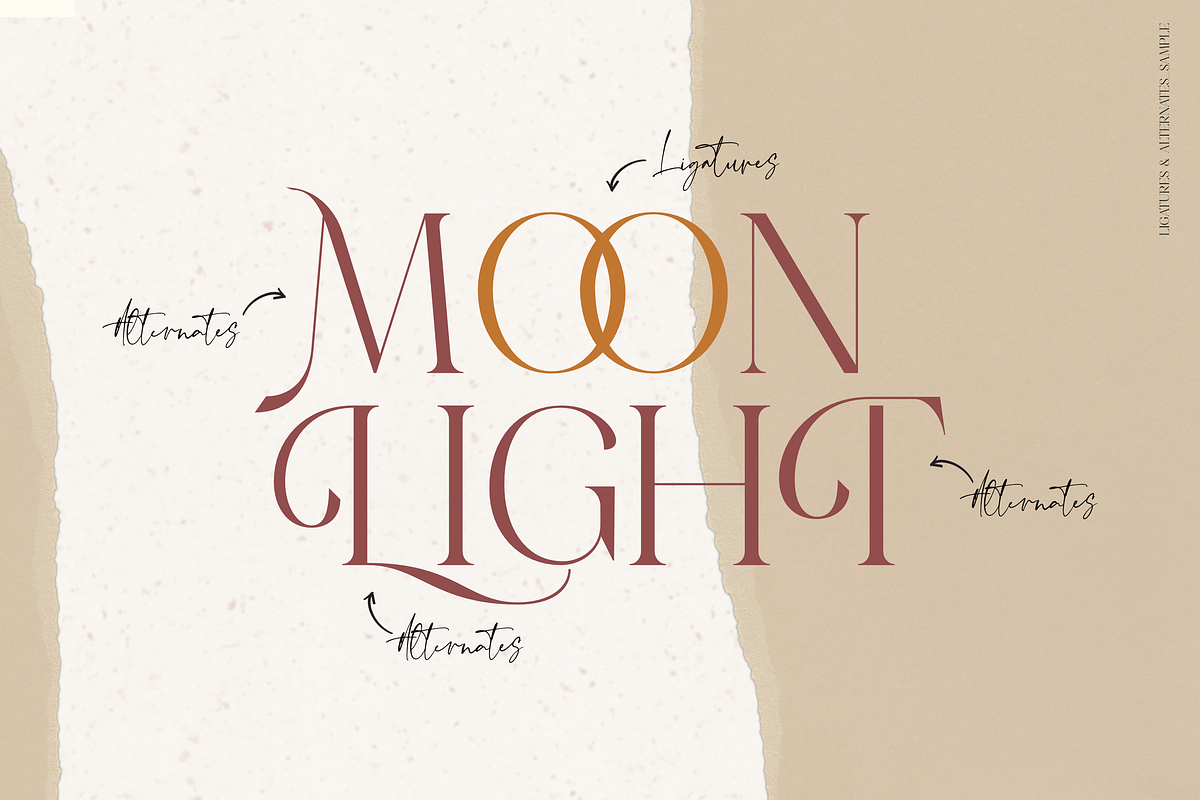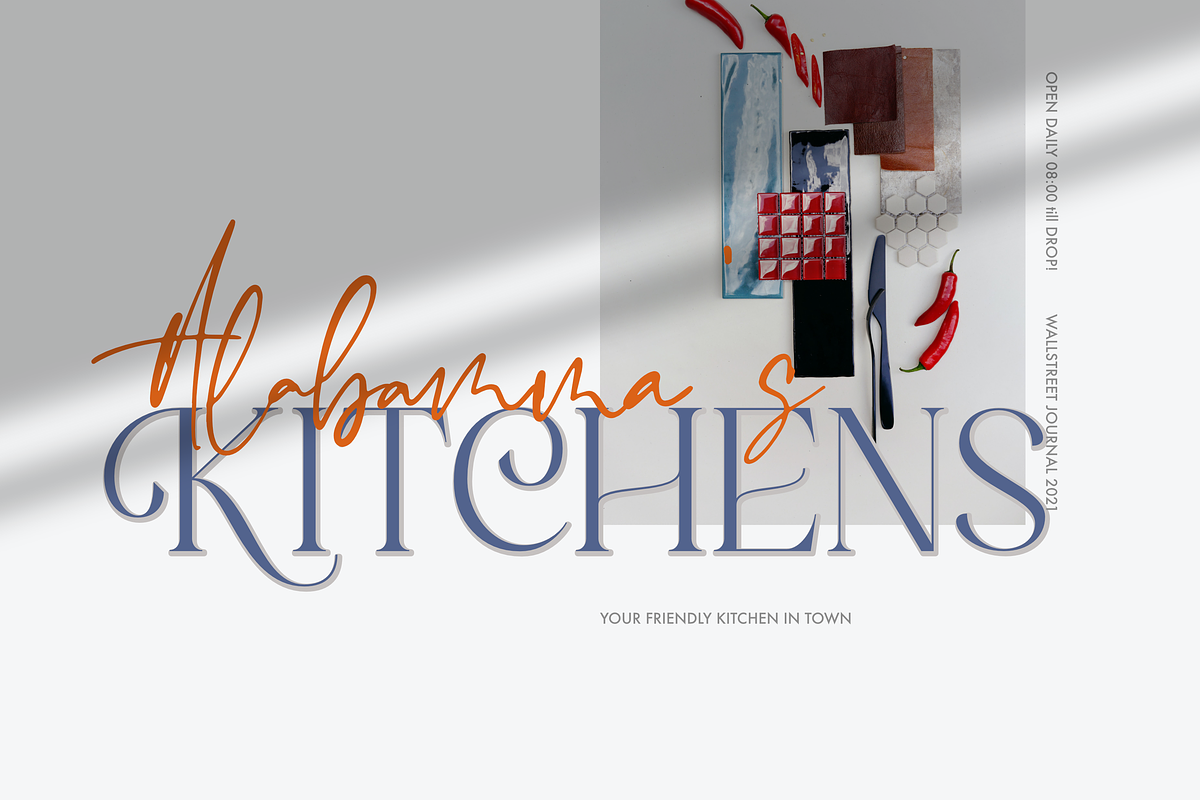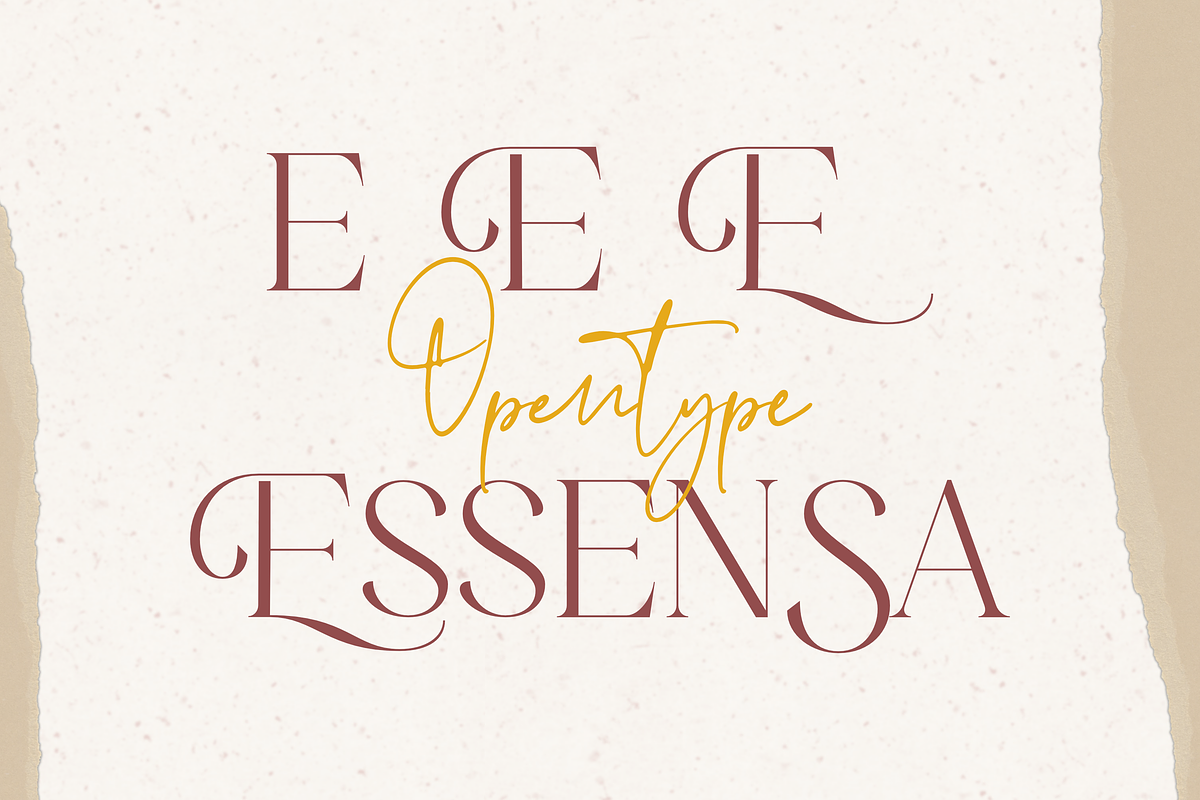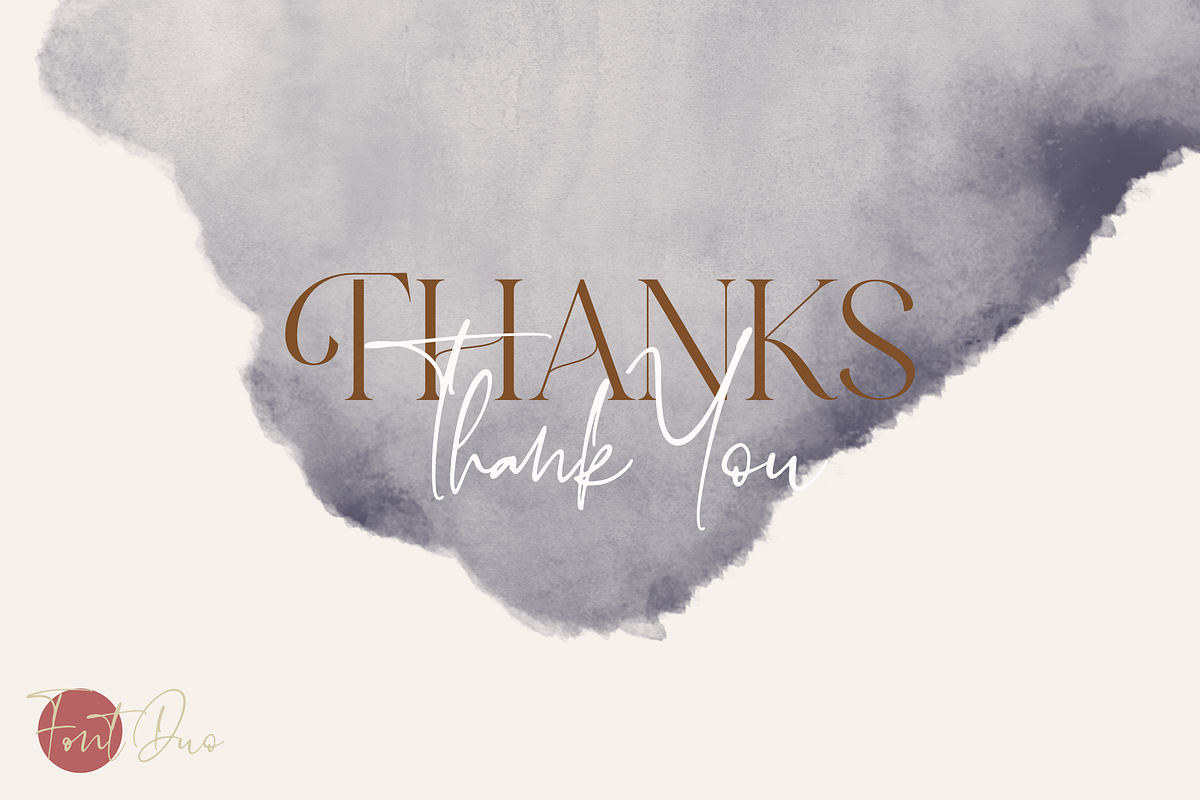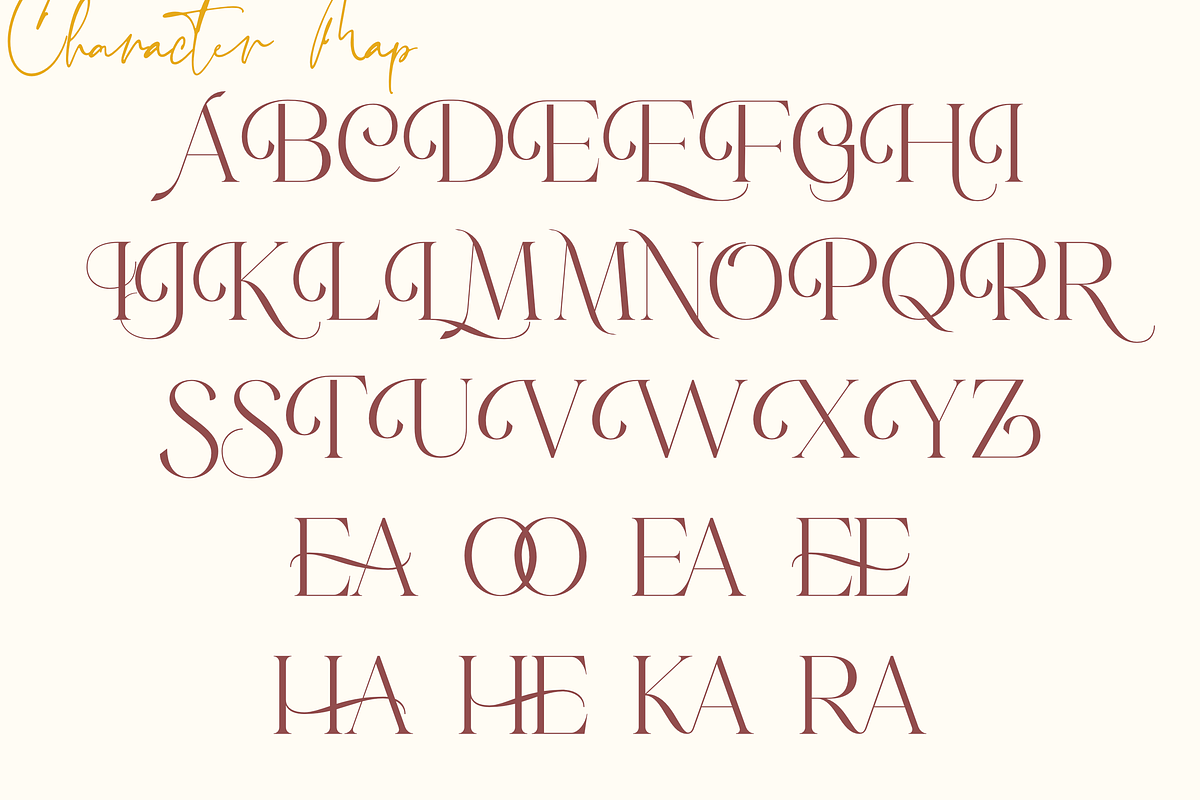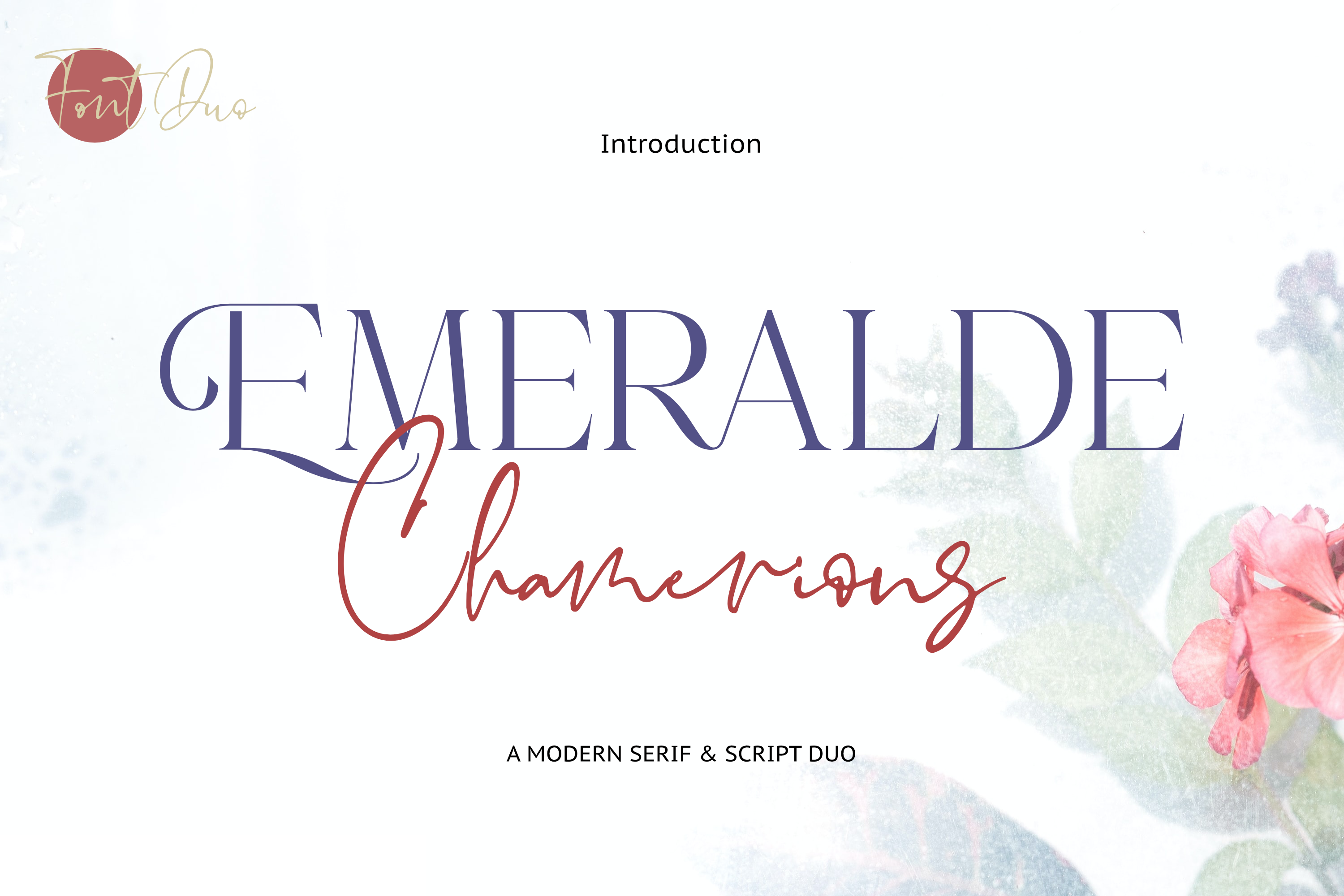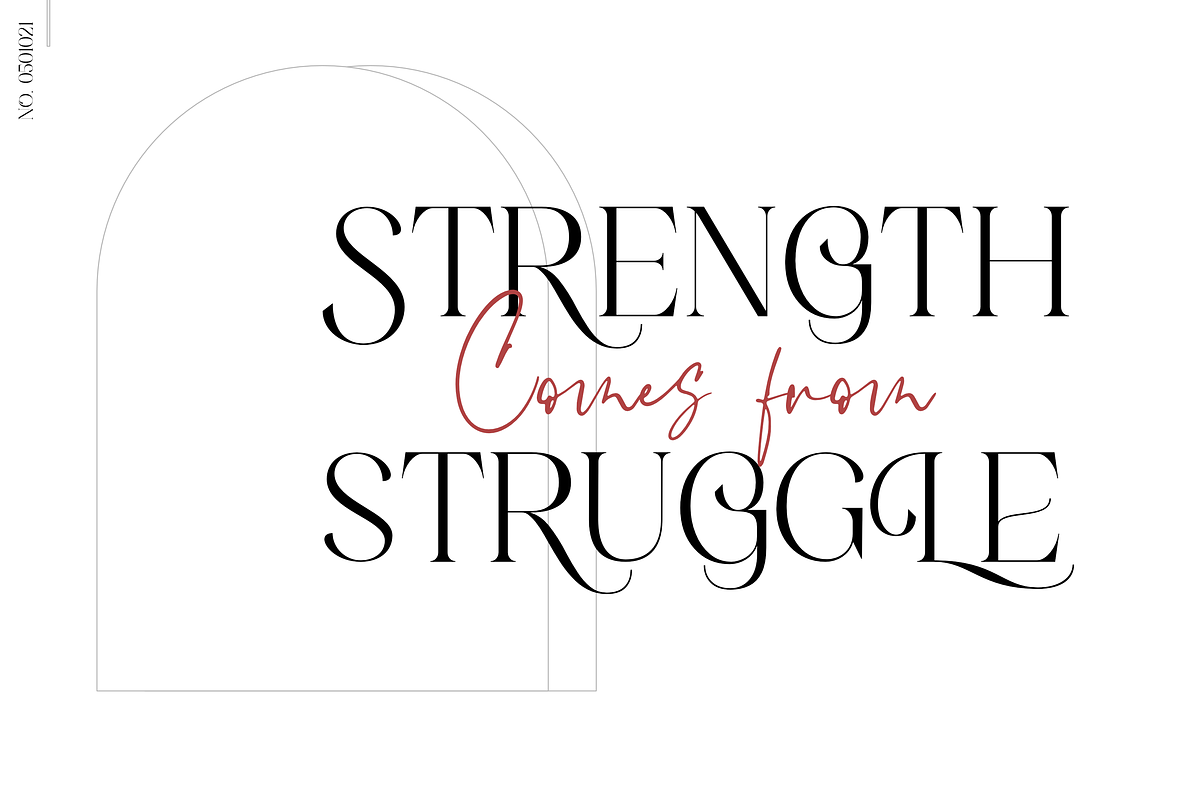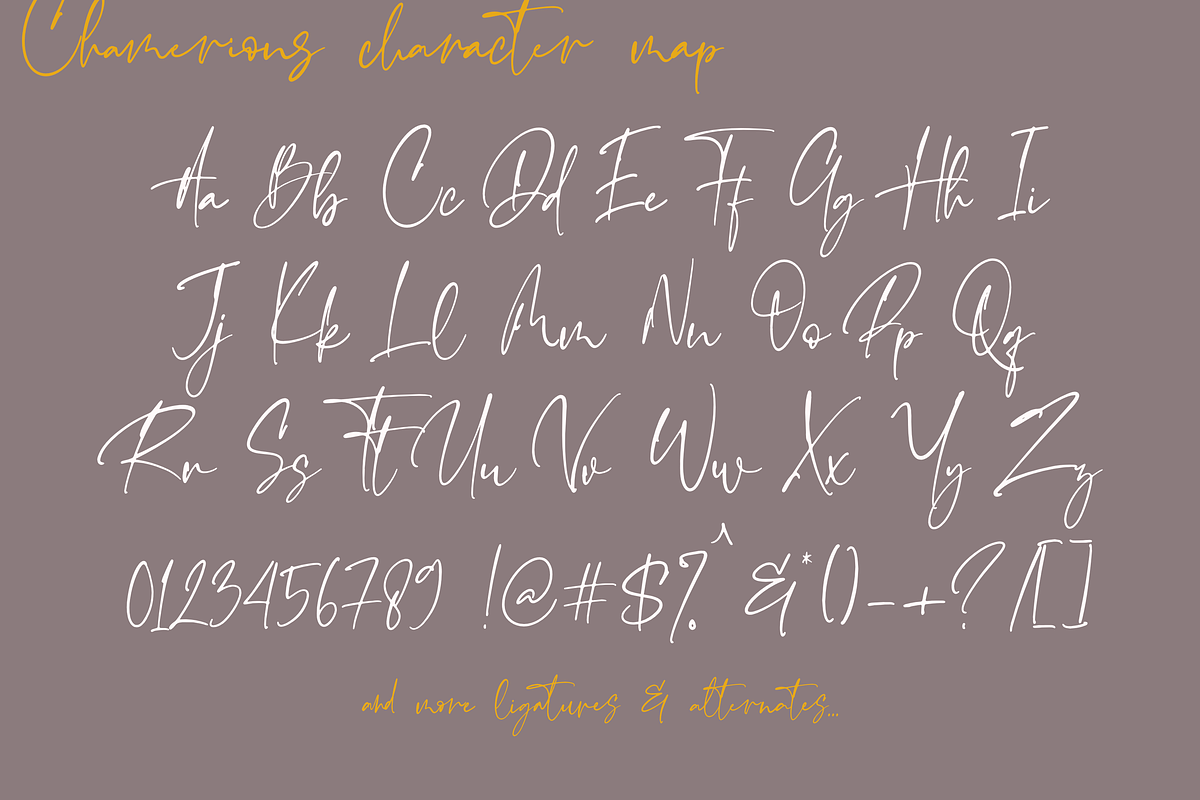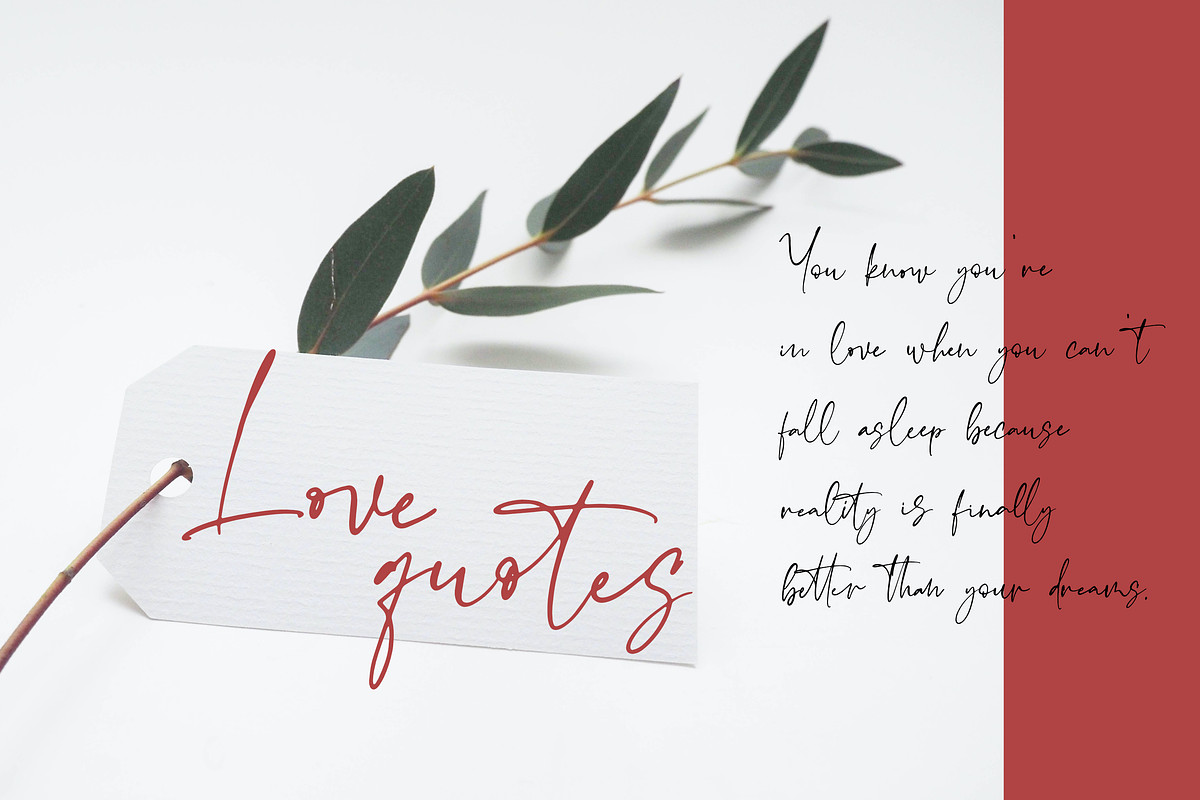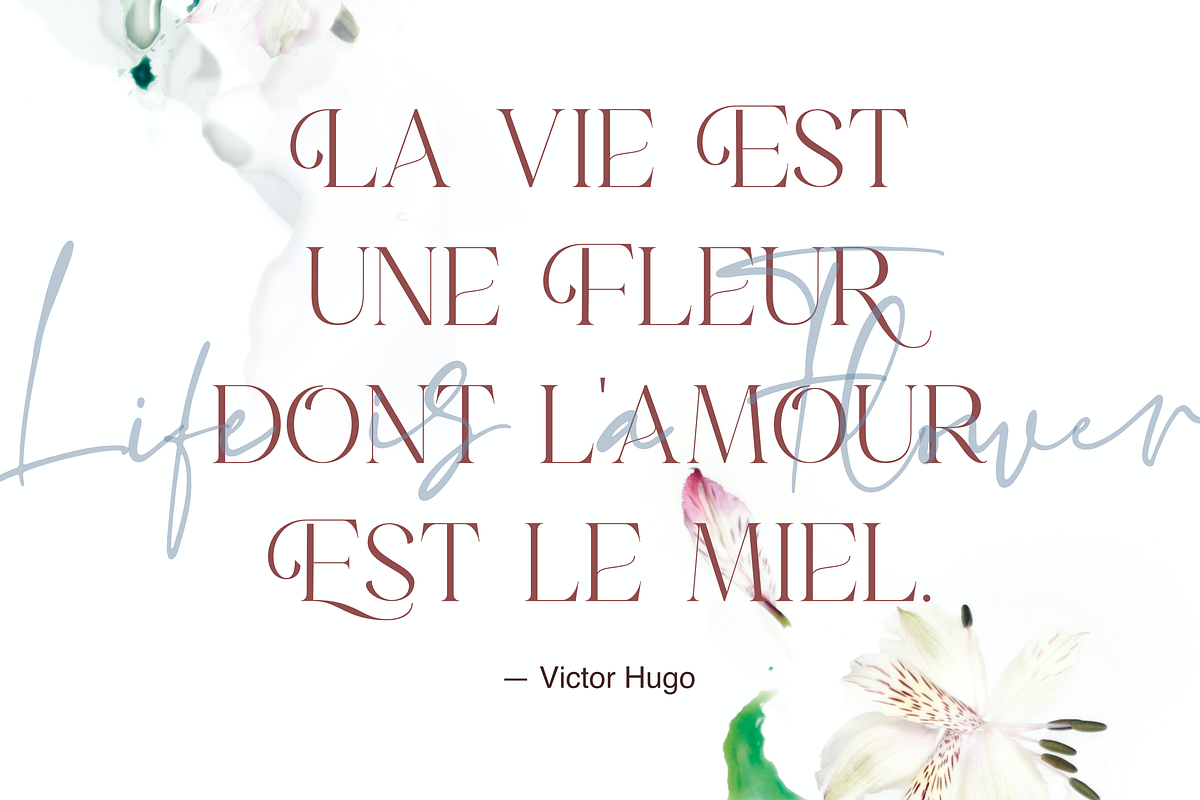
Emeralde Chamerions - Stylish Font
Introducing Emeralde Chamerions - Stylish Font Duo , Display Serif And Signature Stylish Script inspired by famous logo perfect for the purposes of designing templates, brochures, videos, advertising branding, logos and more.